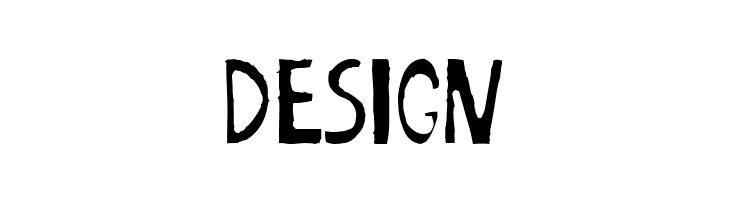
Krysttal Spears Free Regular Font
- Font: Krysttal Spears Free Regular
( Fonts by Dibujado )
A bold, hand-drawn font with a rustic and artistic style.